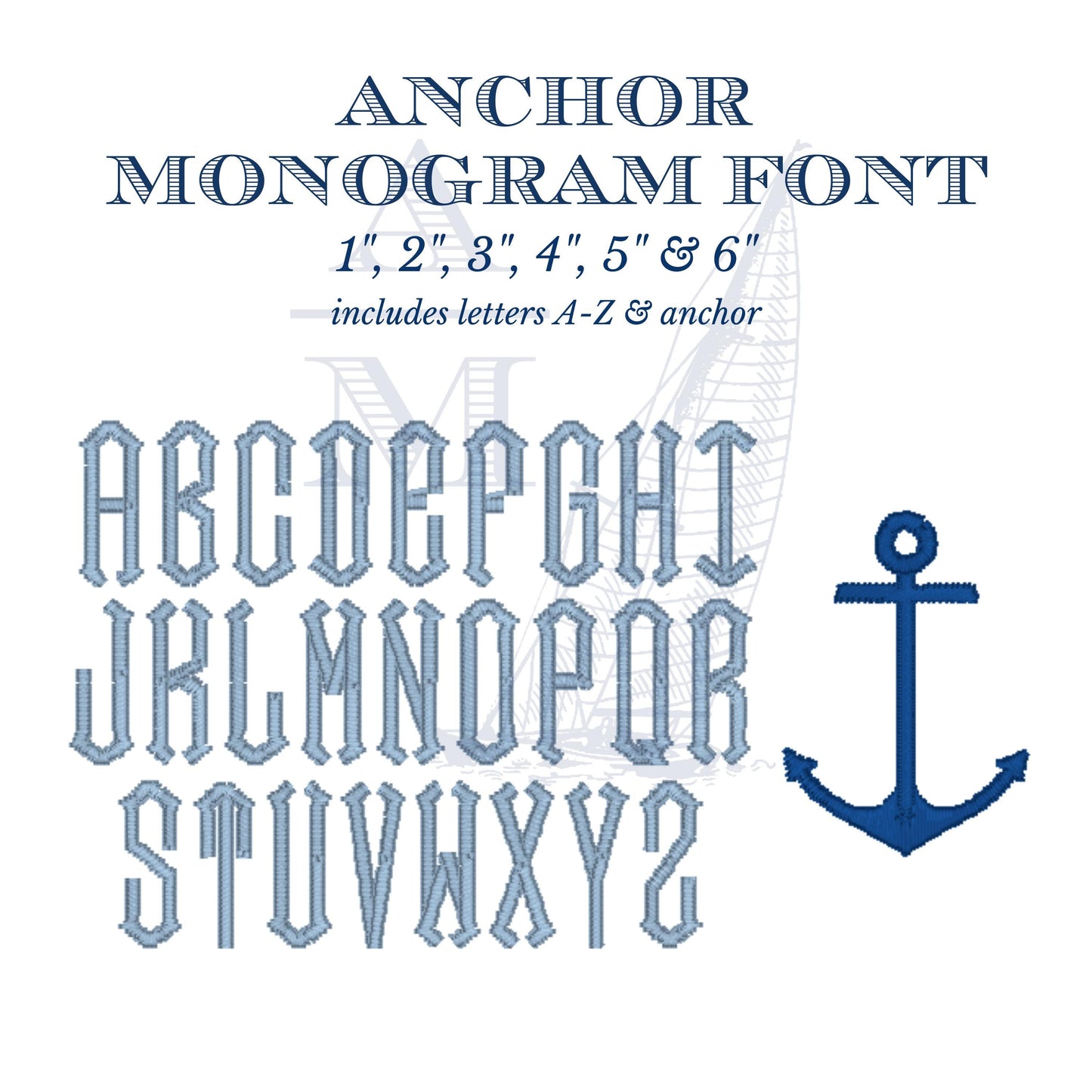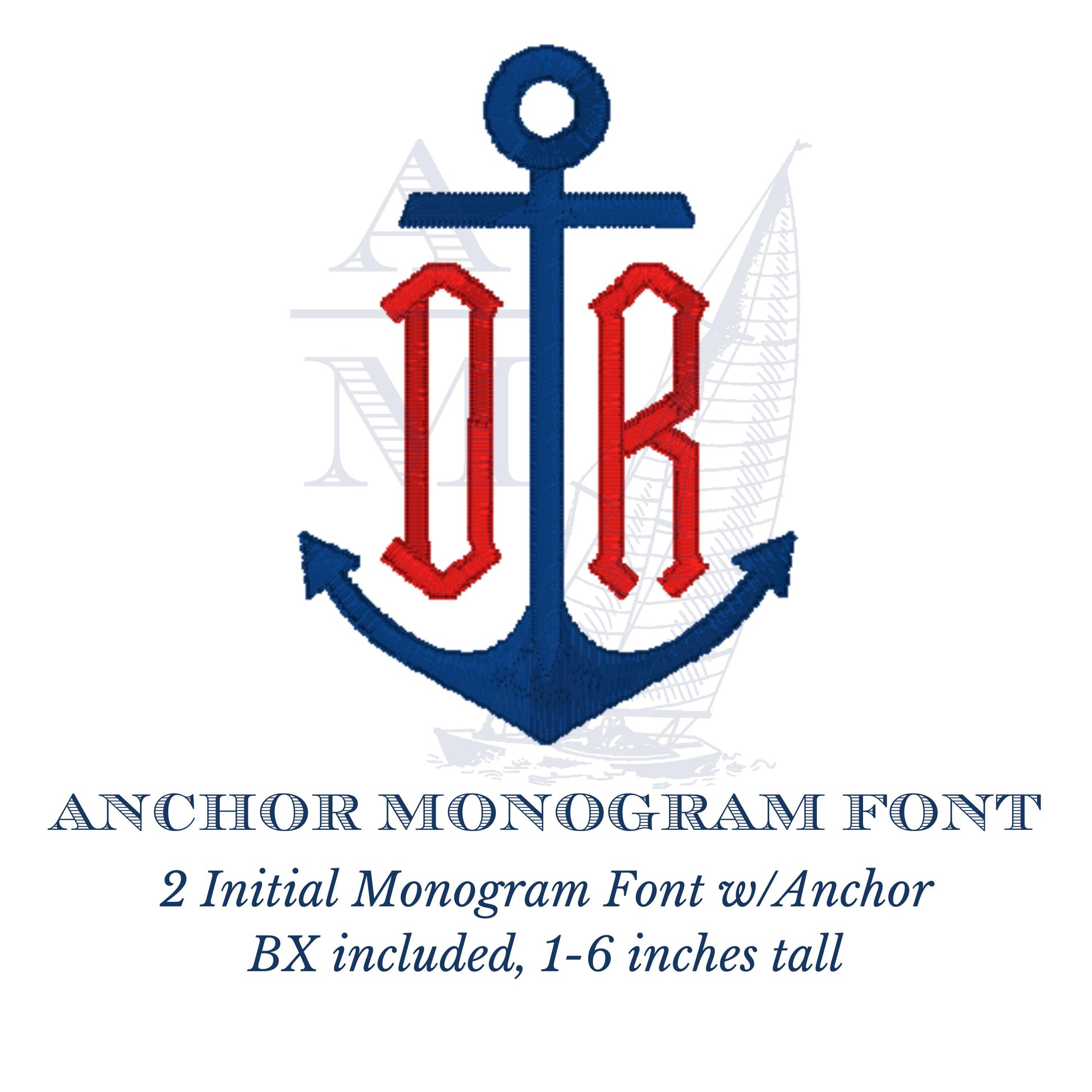
Anchor Monogram Font, Nautical 2 Initials, BX Included, Machine Embroidery Digital File, 6 Sizes
Add nautical flair to your next project with this 2 initial Anchor Monogram Font! This embroidery font includes six sizes: 1", 2", 3", 4", 5" & 6" tall (based on the height of the anchor). It is recommended to use the first and last name initials or could use the first initials of a couple‘s names for a couple‘s monogram. Great for any project--use on monogrammed polos, baseball hats, pillows, home decor, and more!